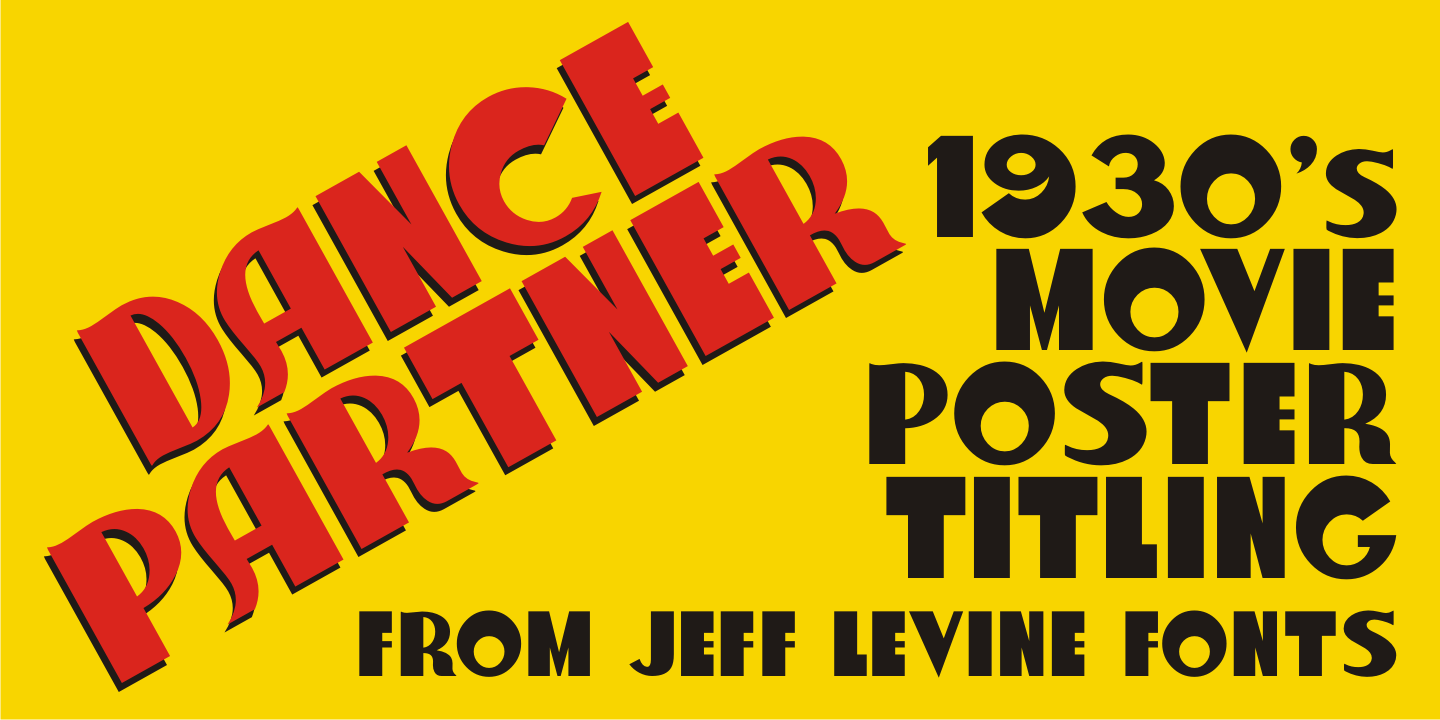
Dance Partner
The unusual mix of Art Deco lettering with a smattering of Art Nouveau characters found within Dance Partner JNL comes from a movie poster for the1935 RKO picture 'Roberta” starring Fred Astaire and Ginger Rogers.
The musical was based on the hit 1933 stage play that introduced the song 'Smoke Gets in Your Eyes”. The play itself was based on the Alice Duer Miller novel 'Gowns by Roberta”.
Dance Partner JNL Regular by Jeff Levine Fonts